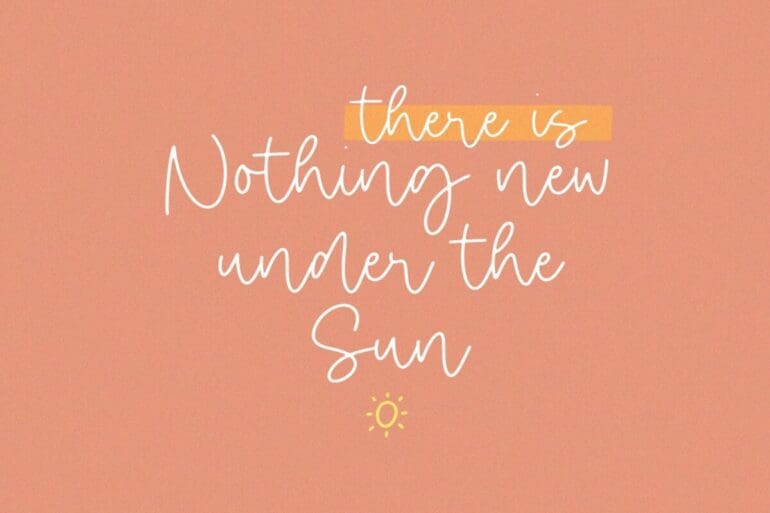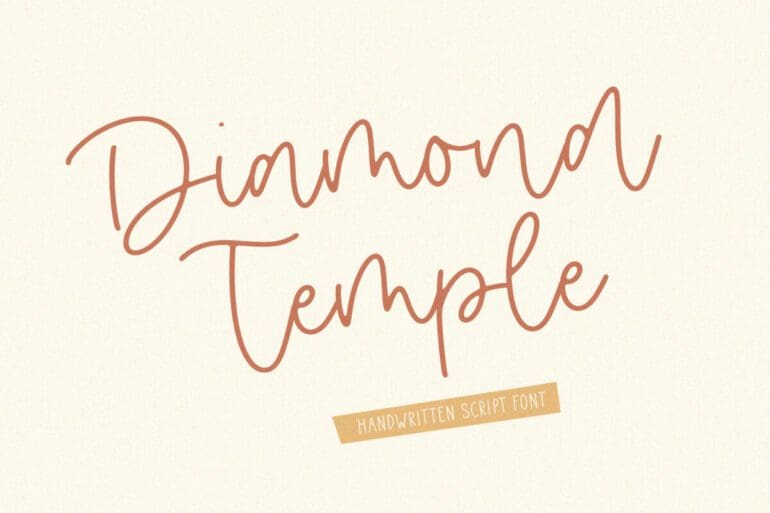
Diamond Temple Font
Diamond Temple is a lovely handwritten font created with great care, especially for you. Diamond Temple is perfect for product packaging, branding project, magazines, social media, weddings, or just used to express words above the background.